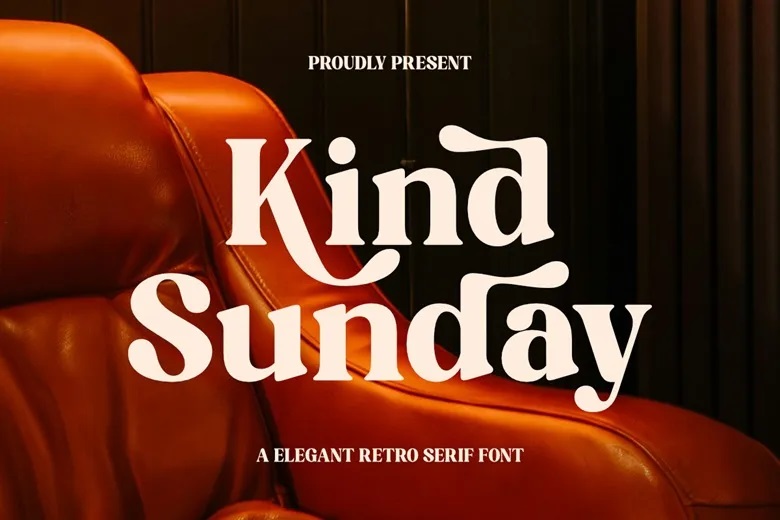
Kind Sunday Font
Kind Sunday is a retro serif typeface designed to add classic charm and personality to modern projects. It stands out in headlines, editorials, branding, posters, packaging, and lifestyle visuals. Its stylish shapes and balanced look make it eye-catching and easy to read in larger sizes.
Kind Sunday Serif Font